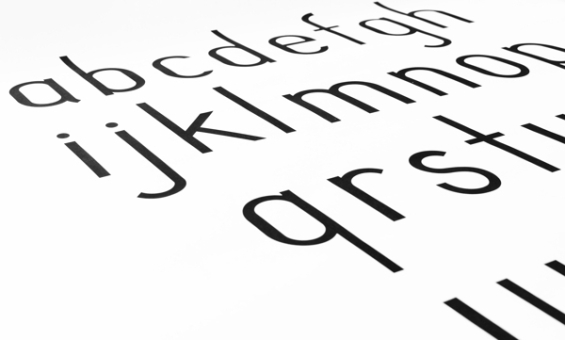
Purpose
Purpose is a typeface that was created for an Assignment in the Bachelor of Media Arts Degree at the Waikato Institute of Technology. The first research stages involved gathering imagery and typefaces influenced by New Zealand’s flora and fauna. The idea of New Zealand’s nature was further developed and combined with Christianity. As a Christian, I believe God has created this universe, our world and the beautiful nature we have in New Zealand. With the combination of nature and God, the typeface Purpose was made.